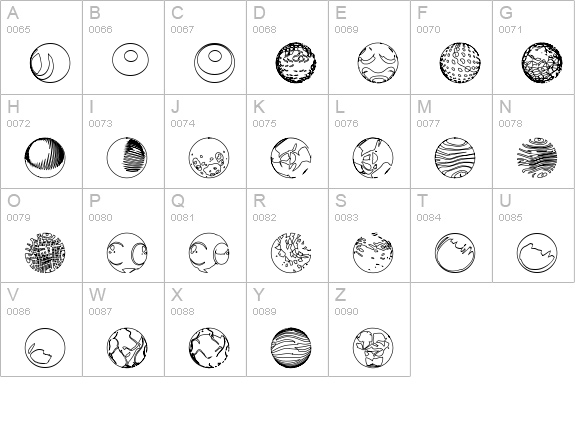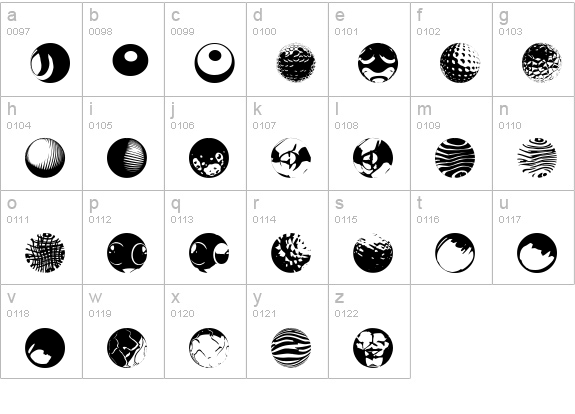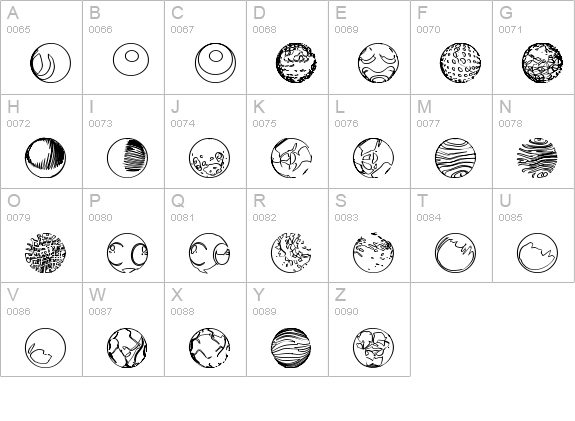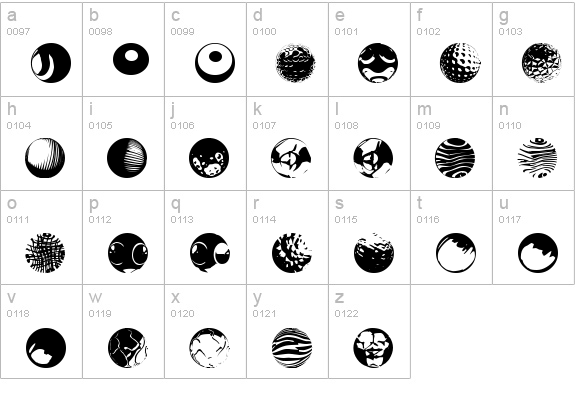
52 Sphereoids Font Details
Introducing the captivating 52 Sphereoids font, a versatile typeface that combines modern aesthetics with a touch of whimsy. Each character in this unique font set is crafted with precision, featuring spherical elements that add a playful twist to your designs. Whether you're working on a branding project, poster design, or website layout, 52 Sphereoids font is sure to make a statement. What's more, this innovative font is not only visually striking but also completely free to download at FontsMarket.com. With its bold presence and eye-catching design, 52 Sphereoids font is the perfect choice for creatives looking to elevate their projects with a touch of originality. Embrace the dynamic energy of this font and let your creativity soar with 52 Sphereoids. Download it today and bring a fresh perspective to your design endeavors.